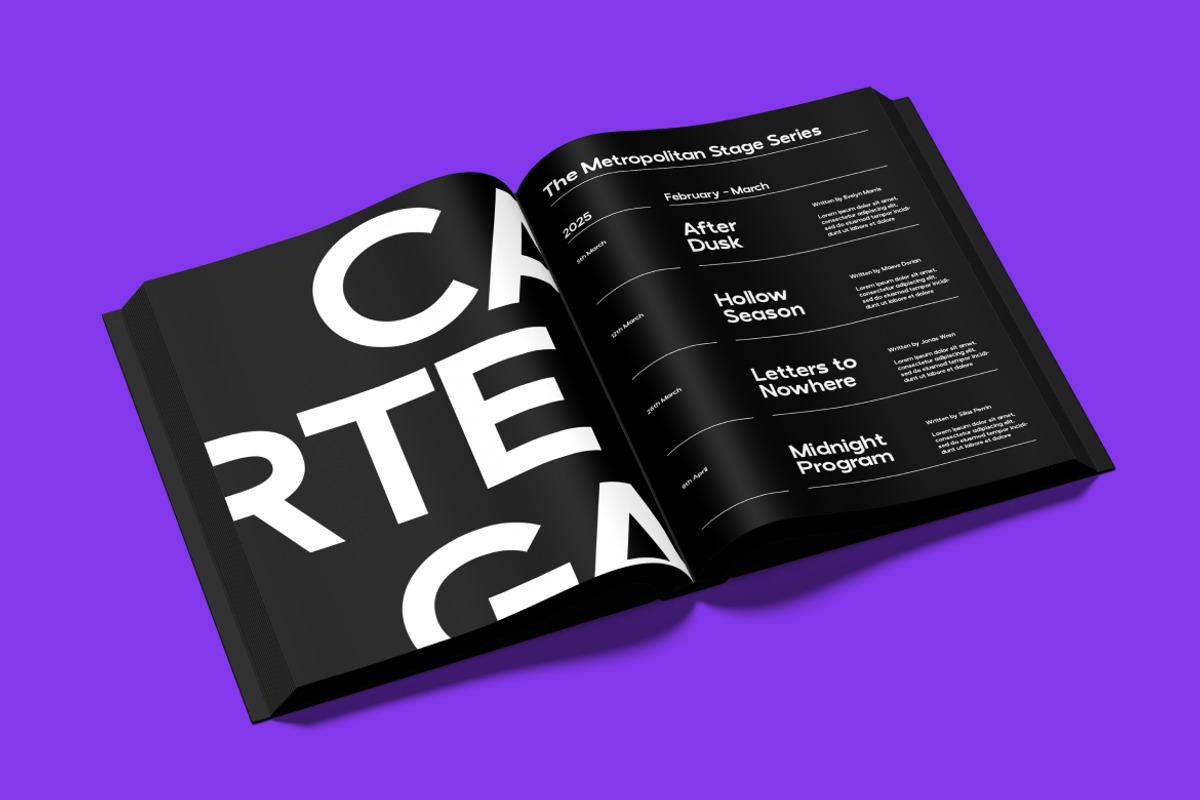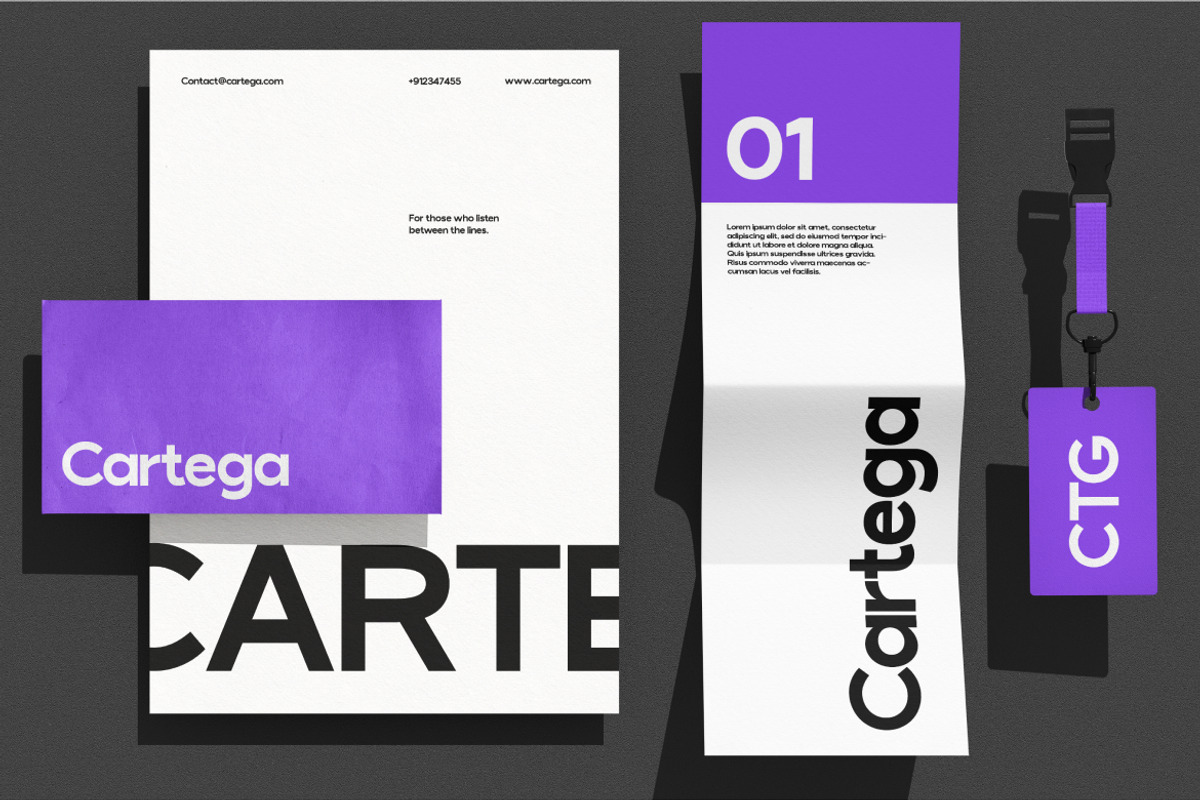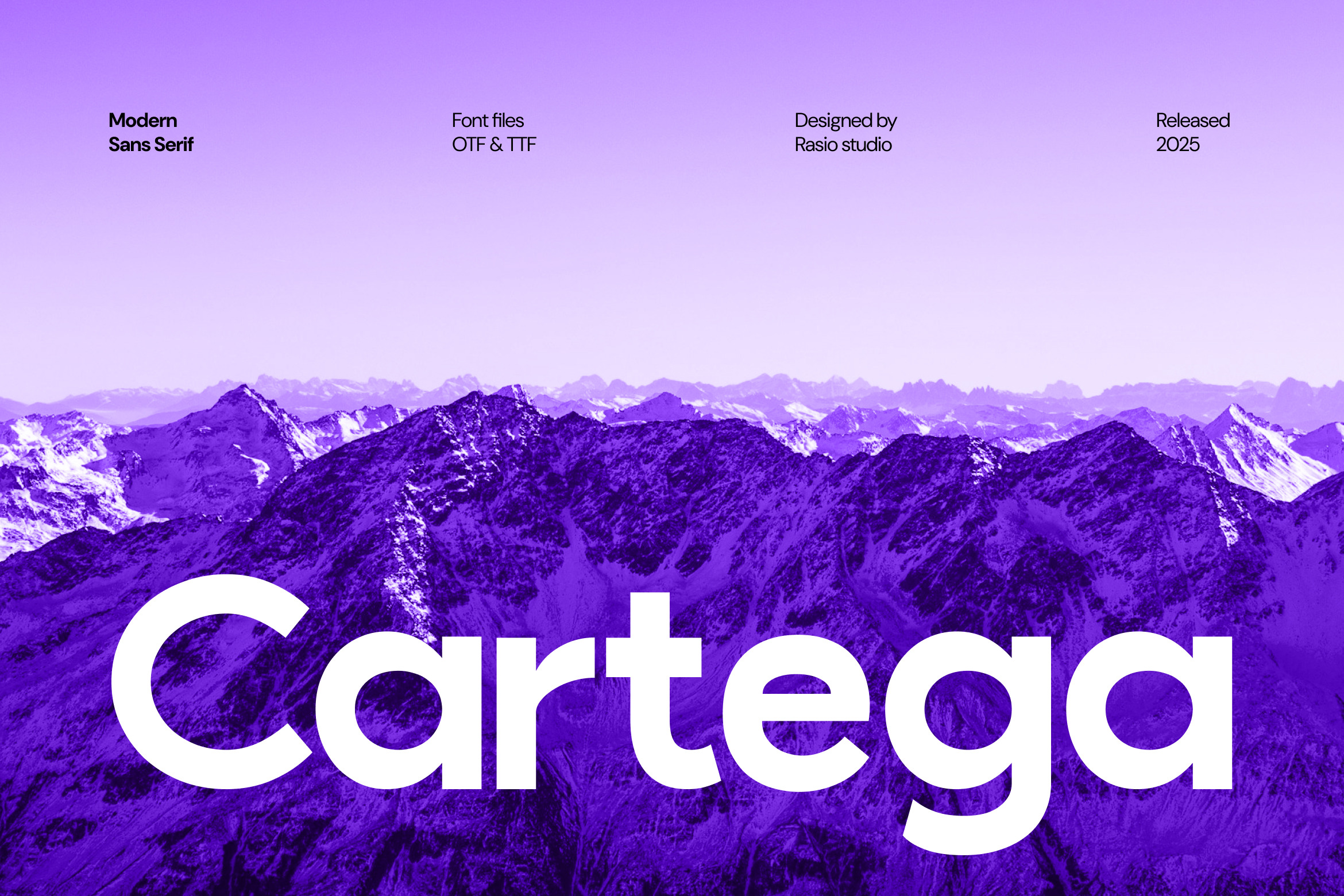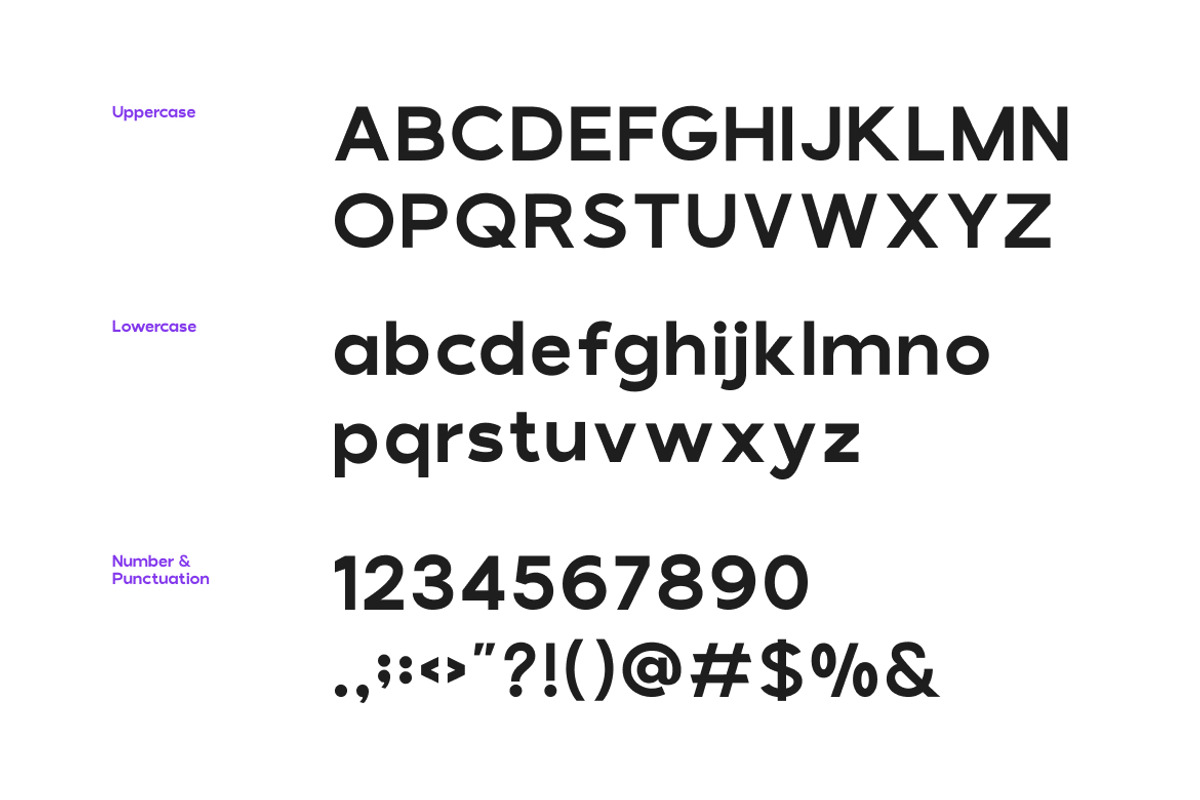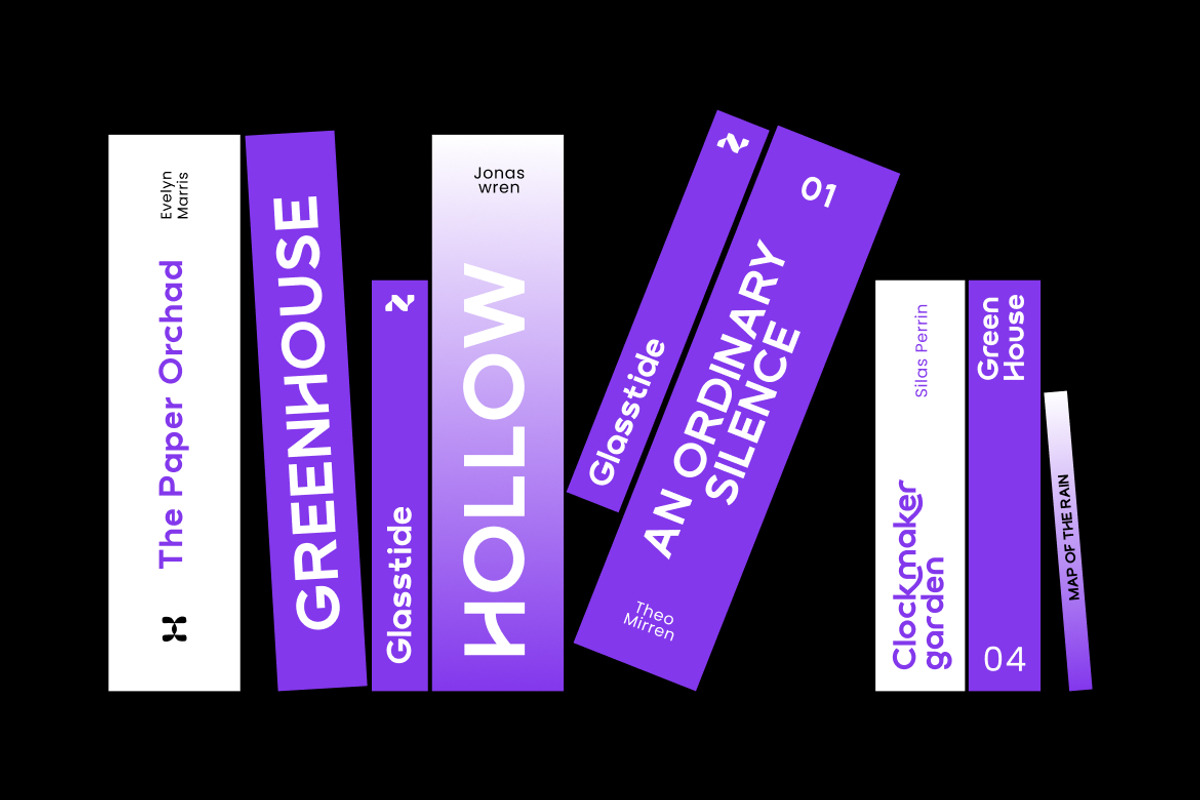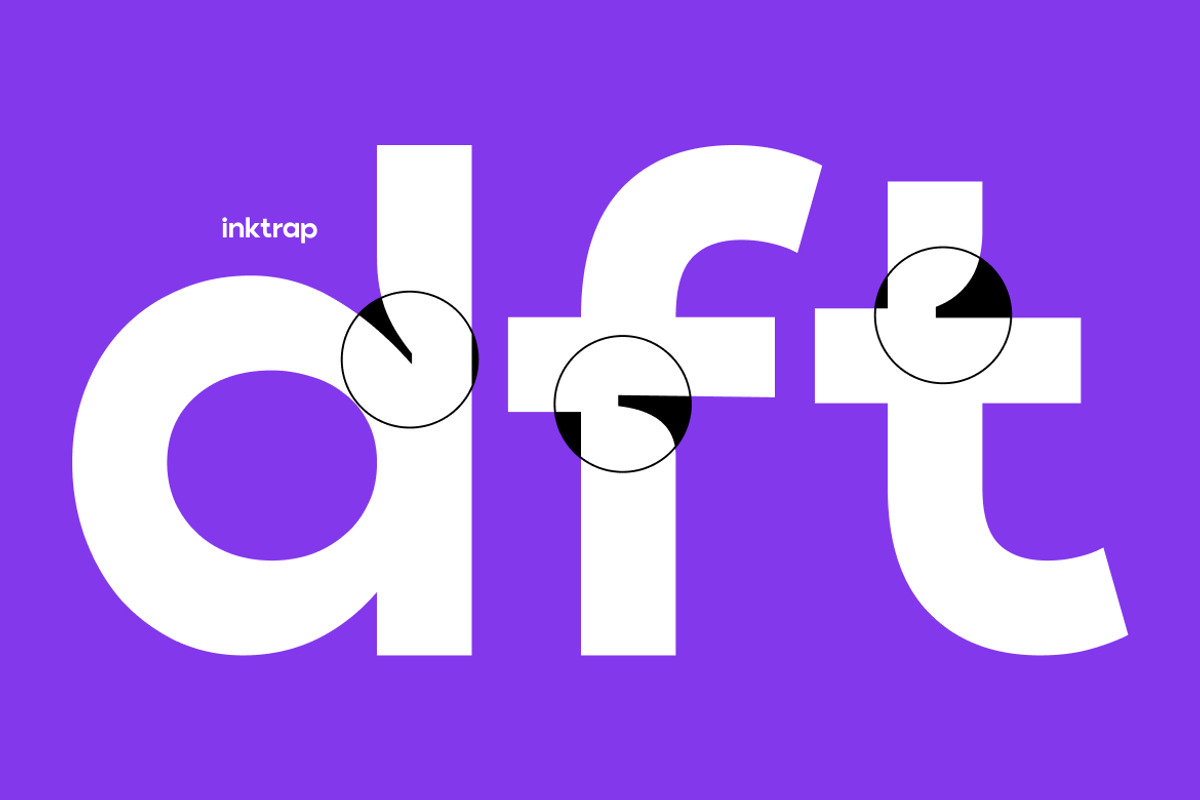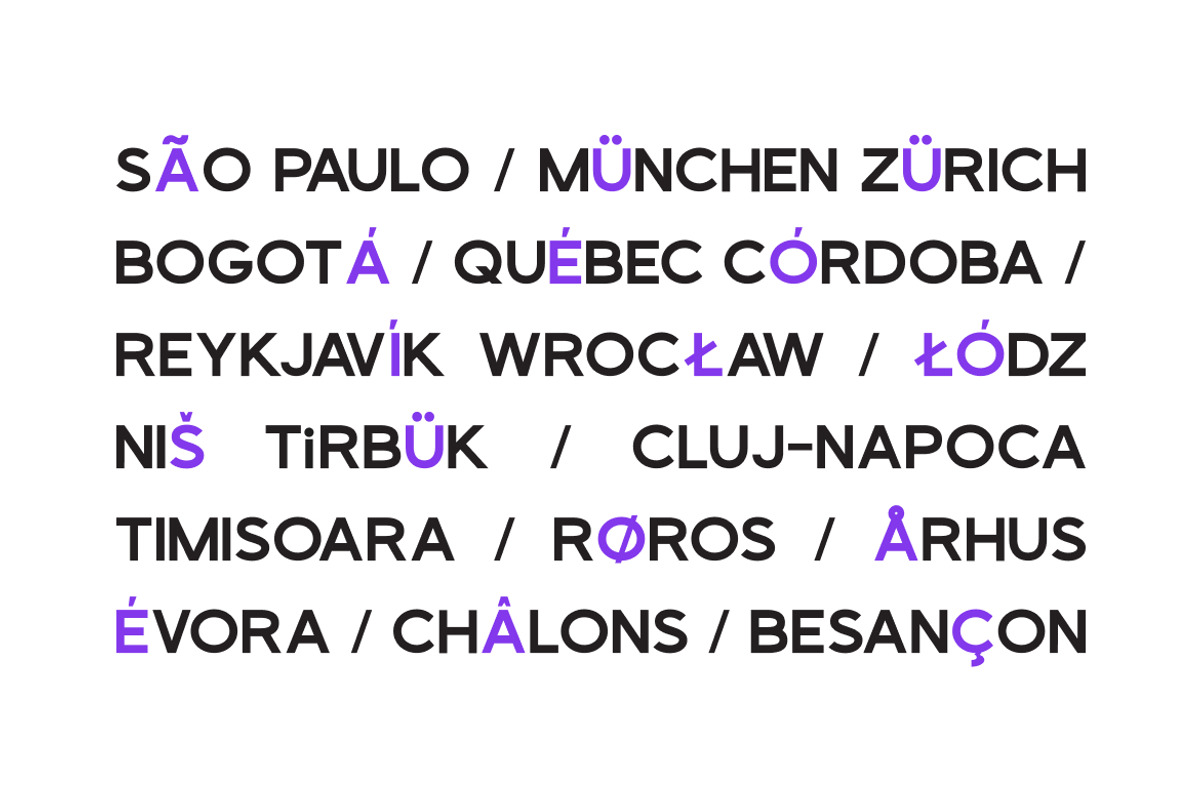
Cartega Modern Sans Serif Font
Cartega is a modern geometric sans serif font designed with clean structure, bold presence, and contemporary clarity. Featuring balanced proportions, smooth curves, and consistent stroke weight, this typeface delivers a strong yet minimal aesthetic suitable for impactful typography. The letterforms are built with a geometric foundation softened by subtle optical adjustments to ensure readability and visual harmony.
Cartega is highly relevant for modern brand identity systems, tech startups, corporate presentations, UI/UX design, editorial layouts, posters, and digital marketing materials. Its geometric structure and confident weight make it ideal for impactful headlines, logos, packaging, and web typography. It suits projects that require clarity, professionalism, and strong visual presence without unnecessary ornamentation.
- Modern geometric sans serif built on a clean structural grid
- Balanced circular forms with precise, contemporary proportions
- Subtle optical corrections to maintain clarity and visual harmony
- Smooth curves and controlled terminals for refined minimalism
- Consistent stroke weight for a strong and confident presence
- Brand identity systems seeking a modern and professional tone
- UI/UX design templates for tech products and digital platforms
- Editorial layouts and contemporary magazine design
- Product packaging with clean and minimalist aesthetics
- Corporate presentations and business communication materials
Make a powerful impression with Cartega modern sans built for impact